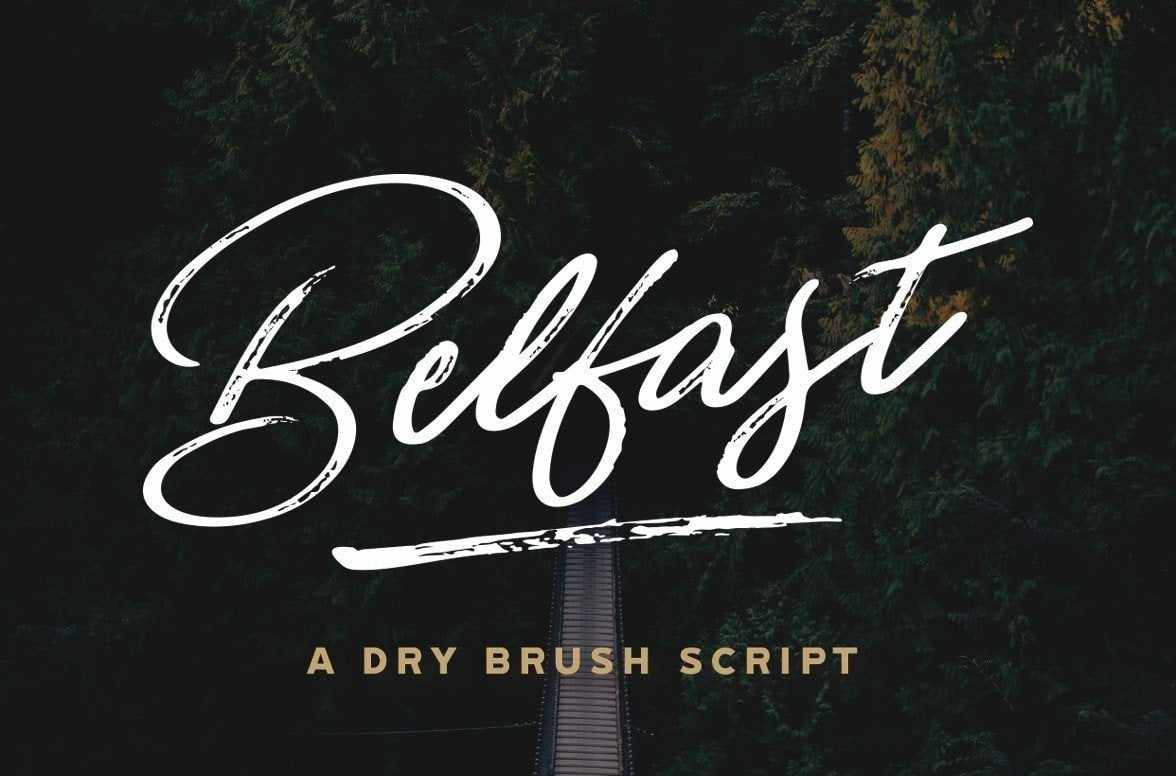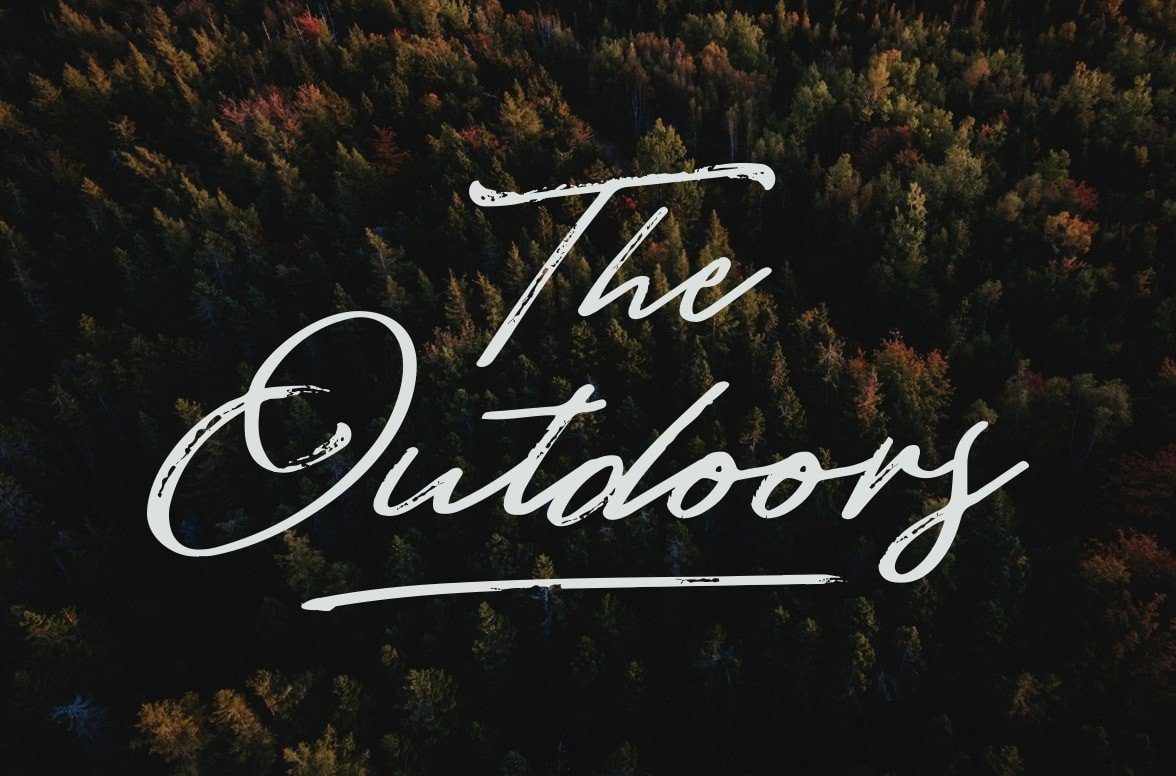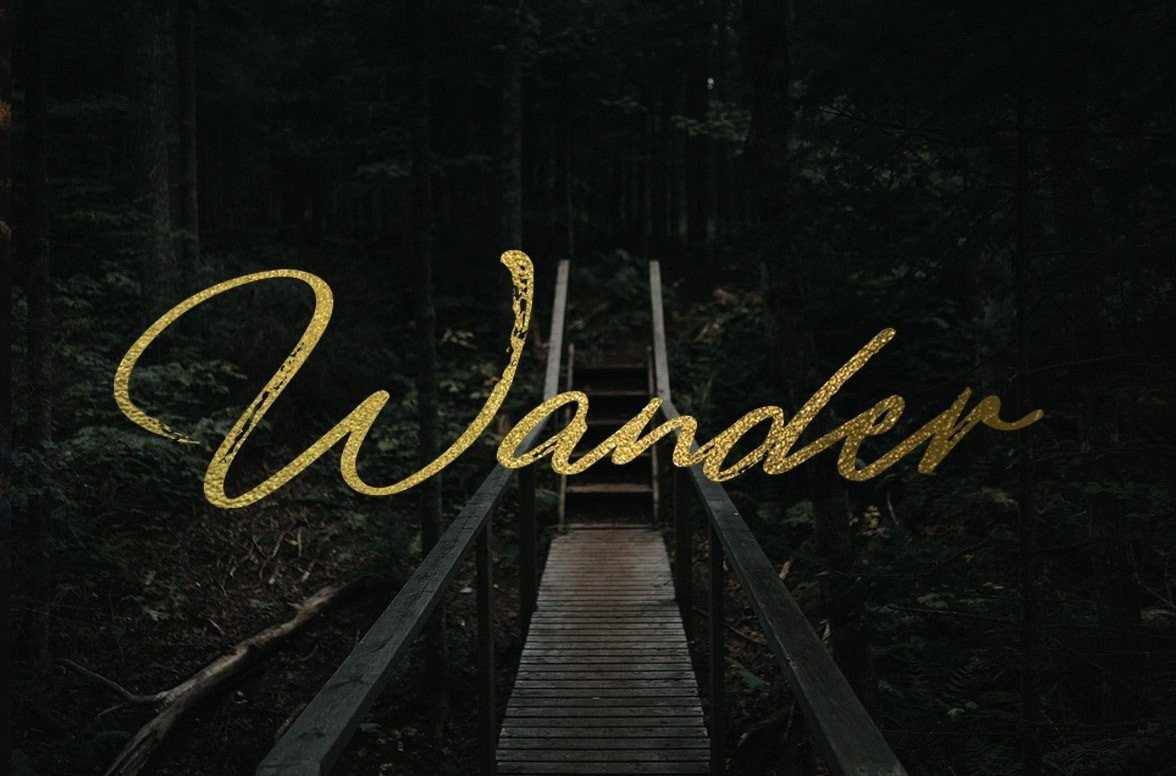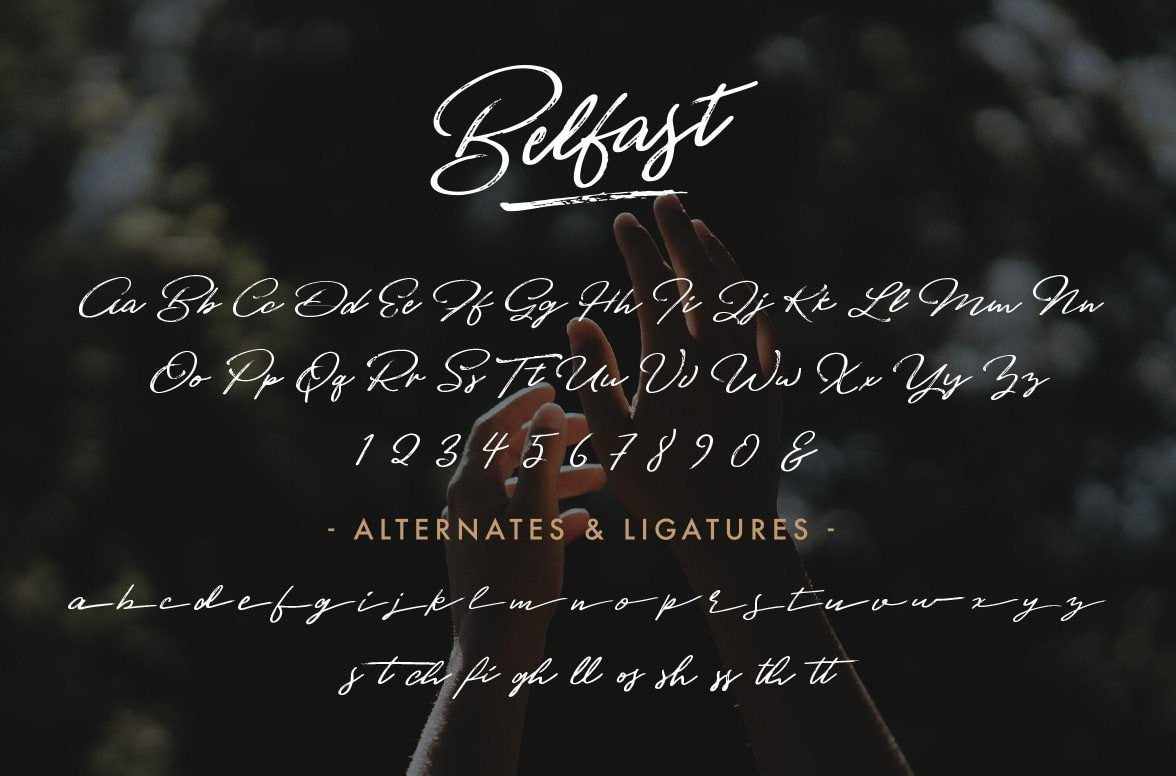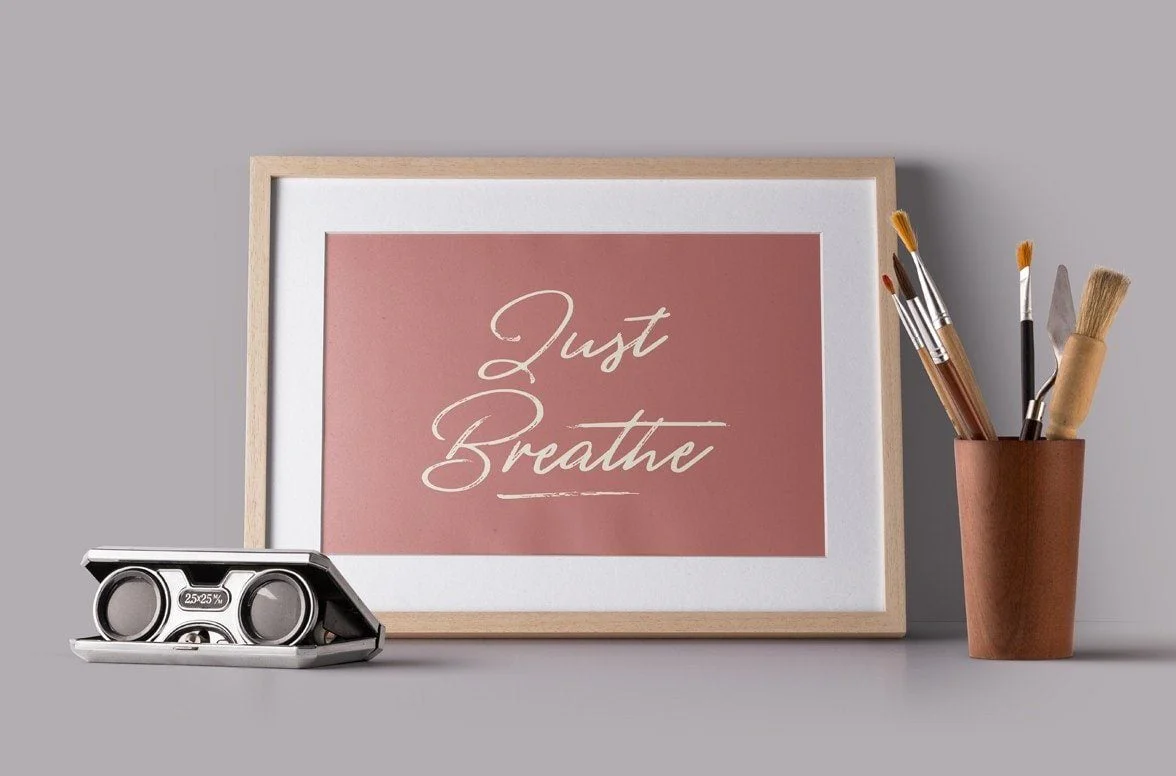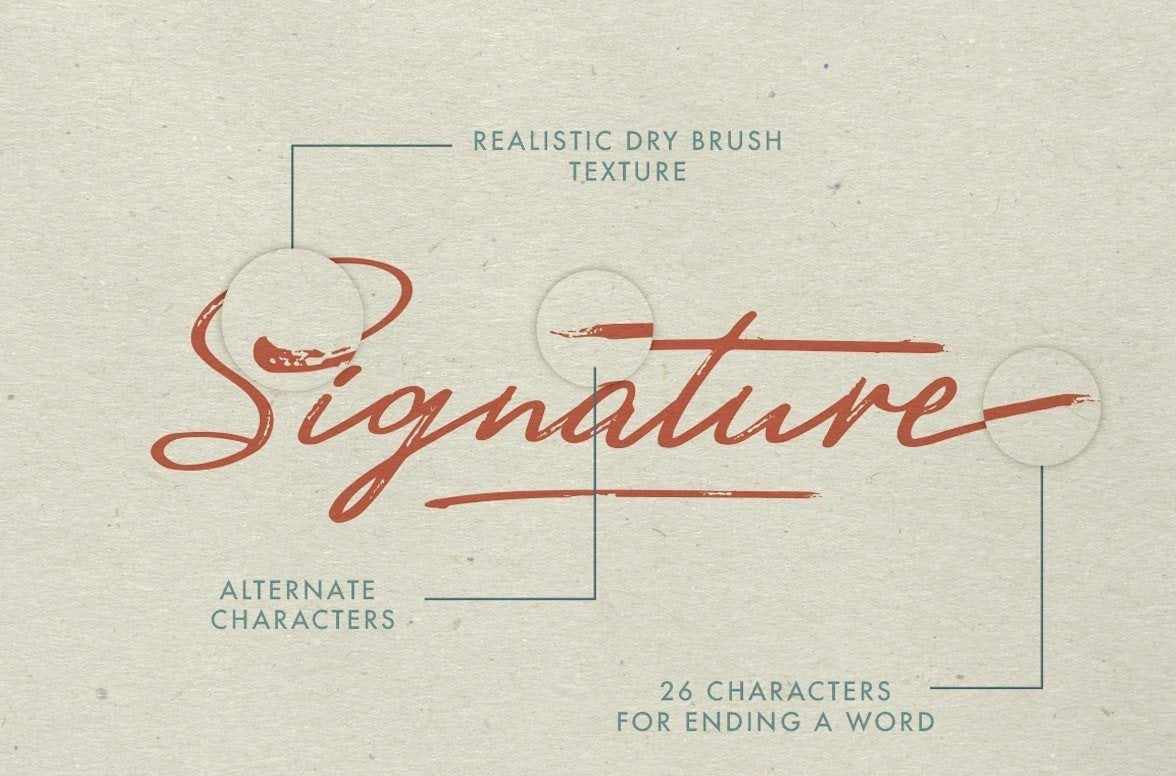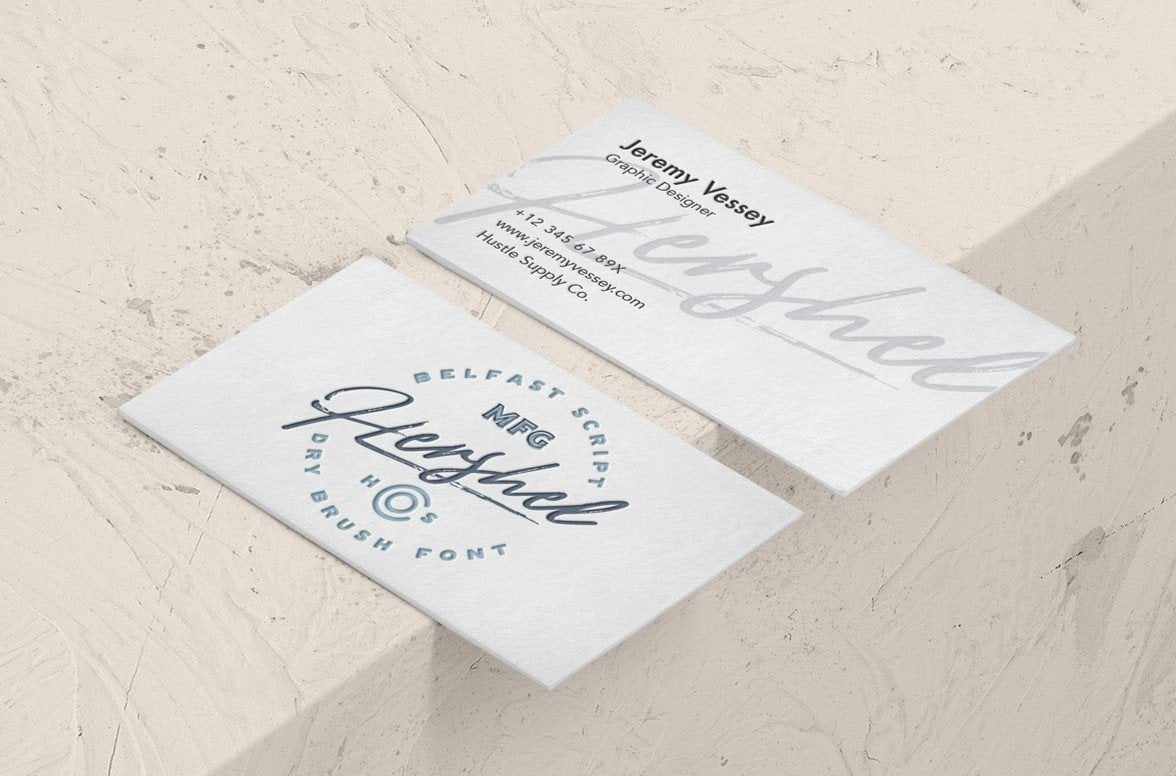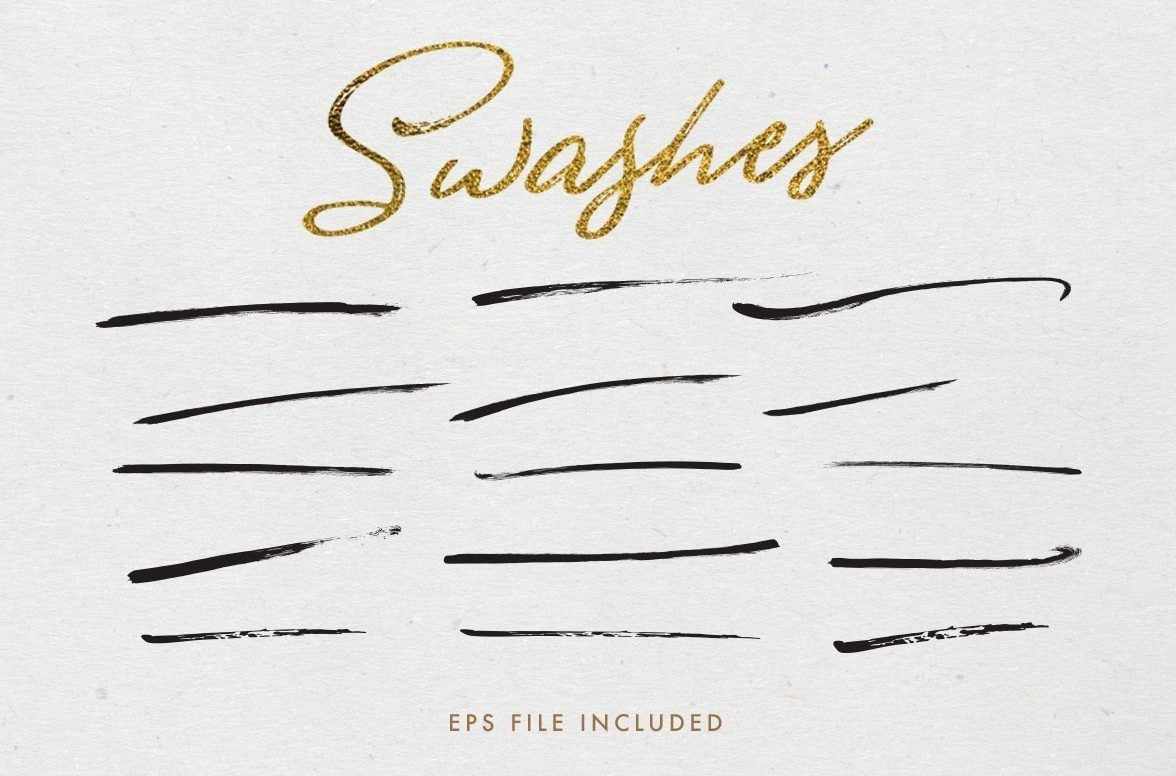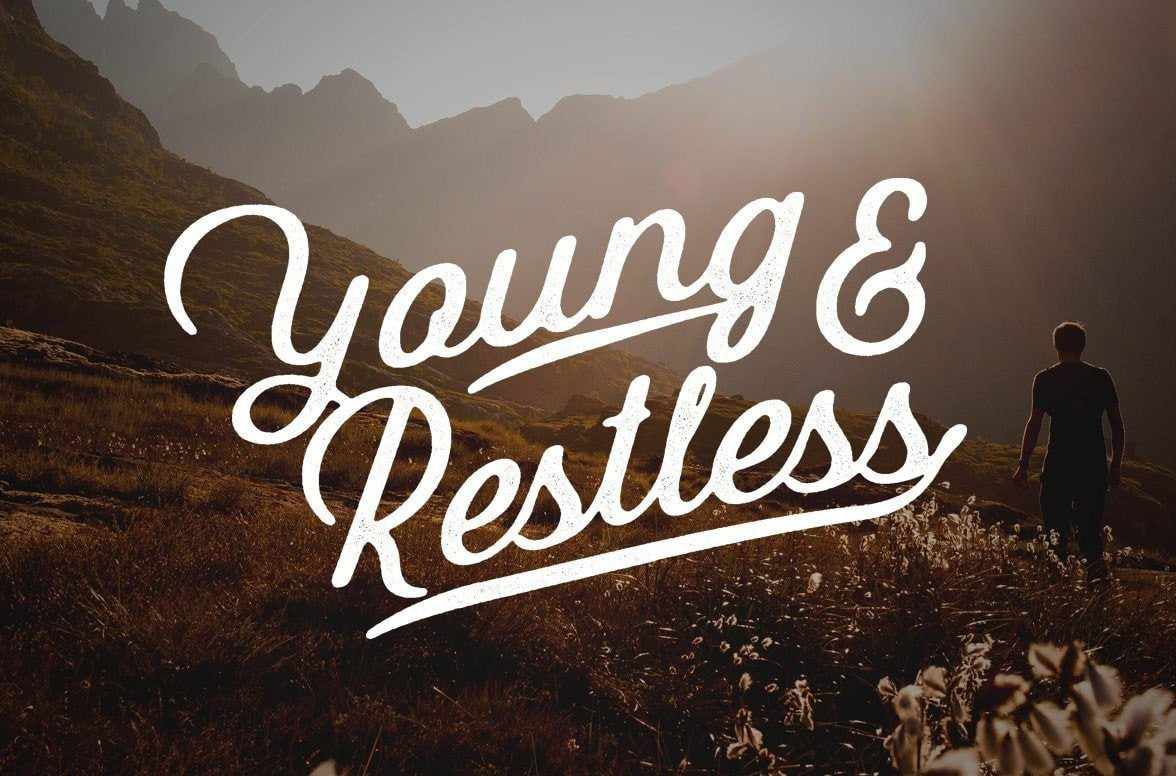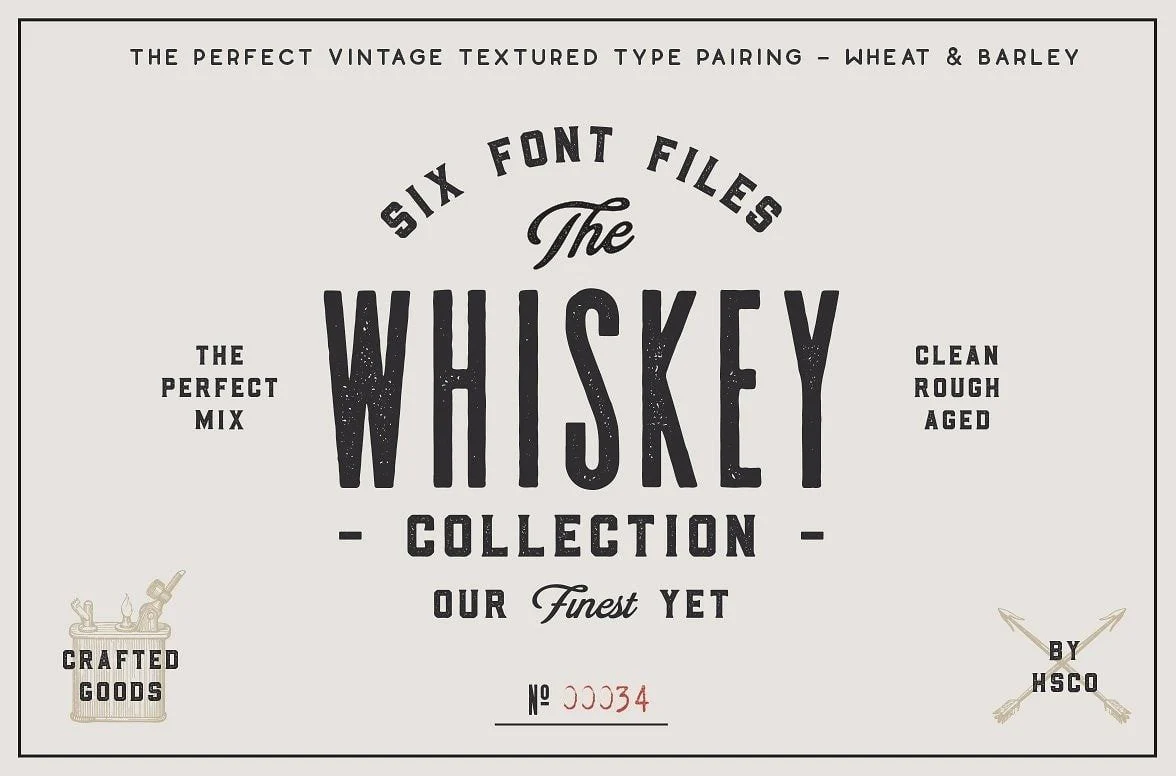
The Curiosities Font Collection
A collection of 35+ best-selling retro fonts including vintage scripts, classic sans, and tastefully distressed versions. Inspired by beer labels, whiskey bottles, and early 20th-century packaging. Save 40% off the retail price!
• 35+ fonts inspired by early 20th-century design.
• Includes scripts, layered fonts, brush scripts, vintage fonts, and hand-lettered fonts.
• Made by master vintage font designer Jeremy Vessey
Jeremy Vessey makes beautiful fonts inspired by the early 20th century. The guys a magician at capturing this era in his fonts.
The result is The Curiosities Collection. A bundle of 40+ scripts, sans-serifs, hand-drawn fonts and more. All inspired by type and scripts of 20th century America.
Gibson
Gibson Script is an old-time inspired script typeface that pairs perfectly with bold, tough type. Absolutely awesome for labels & logos. I started creating typefaces for the use in branding projects and I think that Gibson is the font that my Type Collection was missing. Perfect for use in anything from Branding, Web, Packaging, Etc.
Includes Western Euro Characters, Swashes & A Rough Version!
Oatmeal Stout
I'm obsessed with Beer Labels! So I thought I'd create a font that I thought appropriate. Oatmeal Stout is my favorite beer, so clearly the name came naturally. I wanted to create a versatile typeface that allowed for multiple takes on the vintage aesthetic. With clean, rough, aged, rough aged, hatched rough, you get a collection of options that allow this to be your next go-to typeface for your branding needs.
• Clean & Rough Shadows (For matching your desired style)
• 2 Textured Versions of Oatmeal Stout
• A Rough Version If You're Looking To Add Your Own Texture
• Western European Characters Included! (French, Spanish, Etc)
Belfast
Belfast is a brush typeface with a very naturally handwritten look & just the right amount of texture. Balancing between elegant and badass. It's a great typeface for Logotypes, Signatures, Wedding Invitations, Business Cards, Titles, Prints, Apparel, you name it.
• 228 Crafted Characters
• Western European Characters
• Alternates & Ligatures
• An Oblique Version of "Belfast"
• 26 Alternate lowercase characters for ending your word
The Brewer's Font Collection
The Brewers Collection
The Brewers Collection is 8 fonts in total. The font family inside is named Draught. This family is an All-Caps family with Sans & Serif options as well as Regular & Condensed versions. On top of that, Draught comes with textured counterparts of each typeface described above.
The Purpose
Draught was made to be a workhorse. The intent was to create a family that had pairings that could easily achieve the desired industrial aesthetic. This product will work very well for Restaurant, Brewing Company, Labelling, Menu's, Signage, Vintage Websites, Apparel, Coffee Shops, Etc.
The Texture
Get a refined Letterpress inspired texture for every style. I made sure that the texture was the perfect amount. Not too much & not too subtle. The quickest way to achieve an Aged Vector File.
This product includes 8 OTF files. 4 Clean styles and 4 Textured Counterparts. Western Characters Included. If you're looking for something that will serve for years to come, The Brewers Collection & the Draught Family is exactly that.
• 4 Font Files (2 Scripts, A Script / Sans Combo & Lastly A Sans Serif Typeface)
• Western European Characters included for each typeface
• Hand Drawn Look & Feel
Every new typeface inspires new work. I think that The Restless Youth Bundle will be a great addition to your design arsenal!